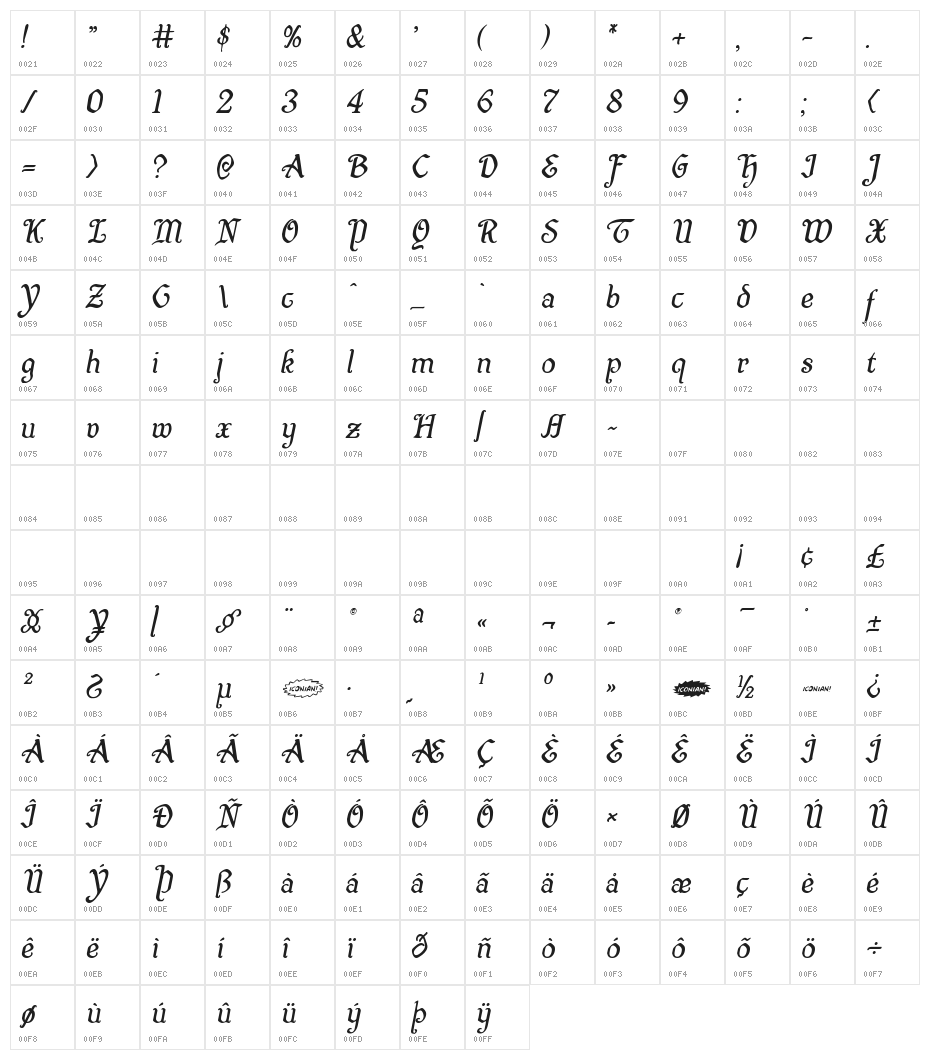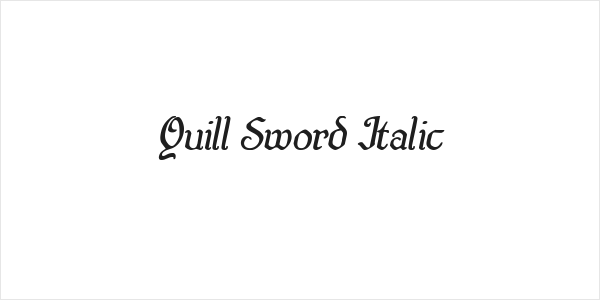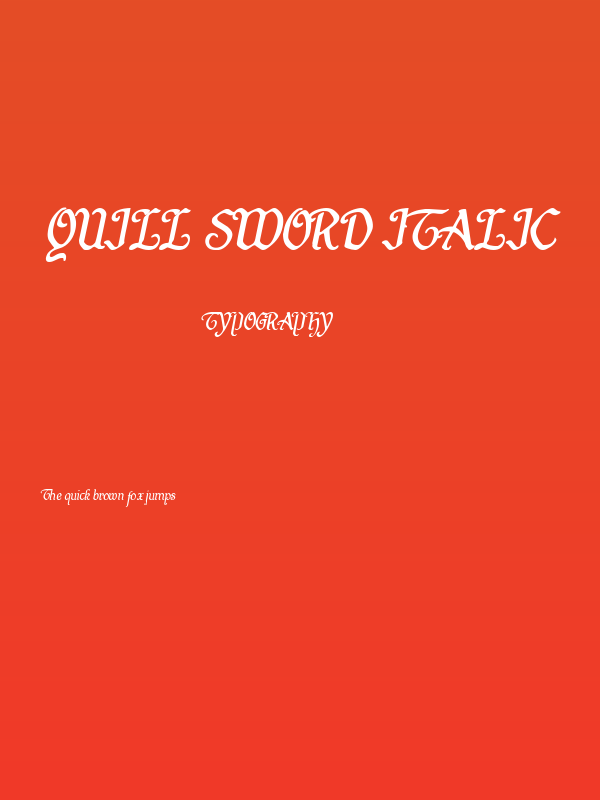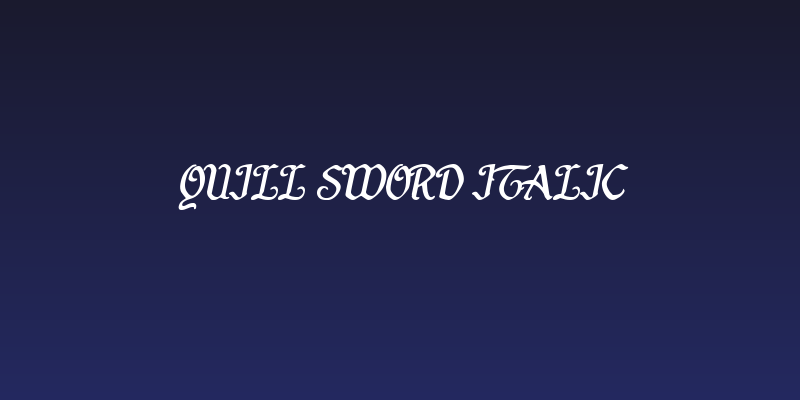
Quill Sword Italic Font
Quill Sword Italic Description
This font features a distinct calligraphic style with elegant, flowing curves and a slight slant, giving it an italic appearance. The uppercase letters are bold and ornate, with unique flourishes that add a sense of sophistication and drama. The lowercase letters maintain a consistent style, with smooth transitions and a harmonious balance between thick and thin strokes. Numbers are clear and legible, while special characters retain the decorative flair of the alphabet. The overall design exudes a sense of historical charm, reminiscent of medieval manuscripts or vintage signage.